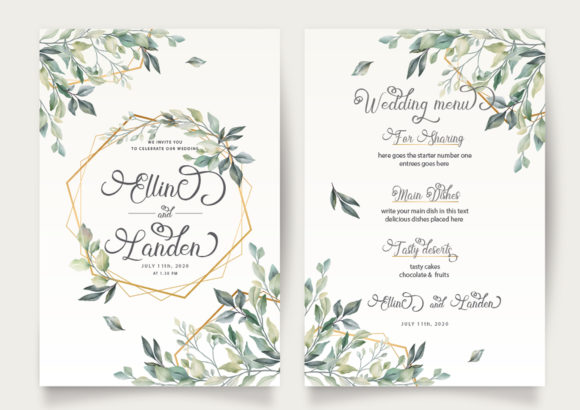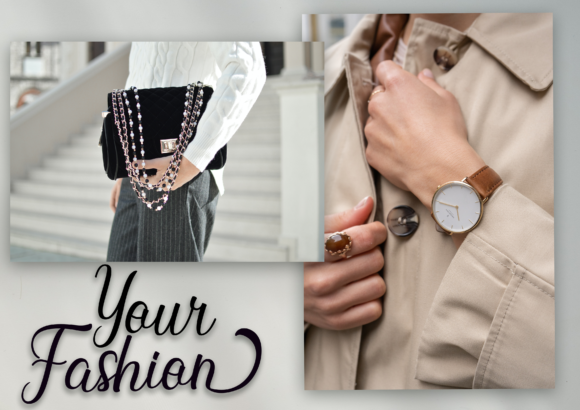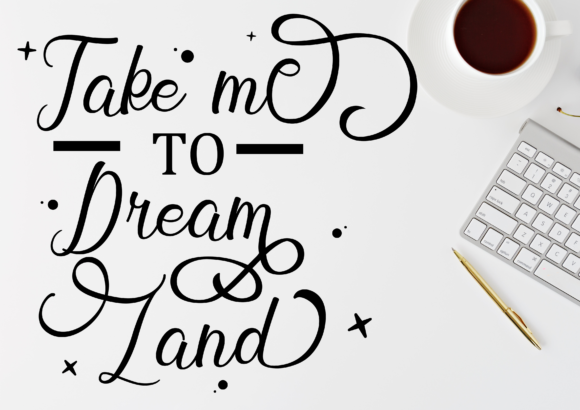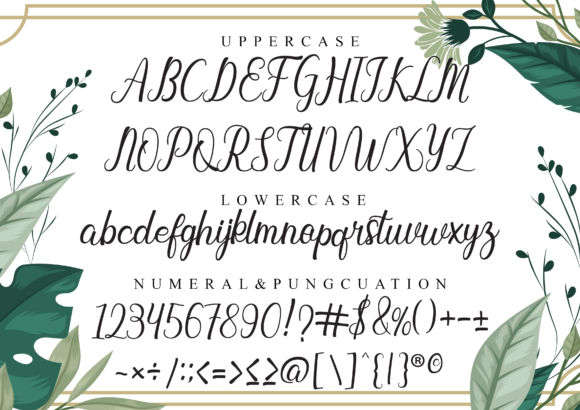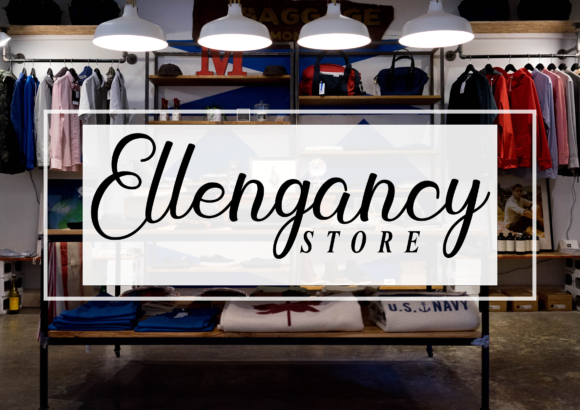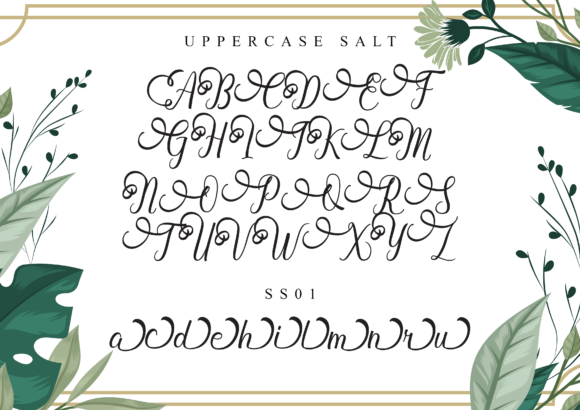
Introducing Baybe Evaline Font: The Sweet and Soft Hand-Lettered Font for Your Creative Projects
Are you looking for a font that exudes sweetness and softness? Look no further than Baybe Evaline, a beautiful hand-lettered handwritten font that’s perfect for creating stunning wedding invitations, stationery art, social media posts, and greeting cards. In this article, we’ll dive into the world of Baybe Evaline and explore its features, uses, and benefits for designers and crafters.
What is Baybe Evaline Font?
Baybe Evaline is a sweet, soft hand-lettered handwritten font that’s designed to capture the essence of authentic, handwritten script. Its delicate and elegant strokes make it perfect for creating beautiful, eye-catching designs that are sure to impress. Whether you’re a designer, crafter, or DIY enthusiast, Baybe Evaline is an excellent choice for any project that requires a personal touch.
Features of Baybe Evaline Font
So, what makes Baybe Evaline stand out from other fonts? Here are some of its key features:
- Hand-lettered authenticity: Baybe Evaline is a genuine hand-lettered font, which means it has a unique, human touch that’s hard to replicate with digital fonts.
- Sweet and soft: The font’s delicate strokes and gentle curves give it a sweet and soft appearance that’s perfect for creating romantic and feminine designs.
- Highly versatile: Baybe Evaline can be used for a wide range of projects, from wedding invitations and stationery art to social media posts and greeting cards.
- Easy to read: Despite its delicate nature, Baybe Evaline is surprisingly easy to read, making it perfect for body text and captions.
Uses of Baybe Evaline Font
Baybe Evaline is an incredibly versatile font that can be used for a variety of creative projects. Here are some ideas to get you started:
- Wedding invitations: Create stunning wedding invitations that set the tone for a romantic and memorable day.
- Stationery art: Use Baybe Evaline to create beautiful stationery art, including notecards, journals, and planners.
- Social media posts: Add a touch of elegance to your social media posts with Baybe Evaline, perfect for quotes, announcements, and promotions.
- Greeting cards: Create cute and personalized greeting cards for special occasions, such as birthdays, anniversaries, and holidays.
Benefits of Using Baybe Evaline Font
So, why should you choose Baybe Evaline for your creative projects? Here are some benefits:
- Unique and authentic: Baybe Evaline’s hand-lettered authenticity sets it apart from digital fonts, giving your designs a unique and personal touch.
- Time-saving: With Baybe Evaline, you can create beautiful designs quickly and easily, without having to spend hours hand-lettering text.
- Consistency: Baybe Evaline ensures consistency in your designs, making it perfect for branding and marketing materials.
Tips for Using Baybe Evaline Font
To get the most out of Baybe Evaline, here are some tips:
- Pair with contrasting fonts: Pair Baybe Evaline with contrasting fonts to create visual interest and hierarchy in your designs.
- Experiment with colors: Try out different colors and textures to add depth and personality to your designs.
- Use for headlines and titles: Baybe Evaline is perfect for headlines and titles, where its elegant strokes and curves can shine.
- Don’t be afraid to get creative: Baybe Evaline is a versatile font that can be used in many different ways, so don’t be afraid to experiment and try new things.
In conclusion, Baybe Evaline is a beautiful and versatile hand-lettered font that’s perfect for designers and crafters looking to add a touch of sweetness and softness to their creative projects. With its authentic feel, ease of use, and high versatility, Baybe Evaline is an excellent choice for anyone looking to create stunning designs that stand out from the crowd.